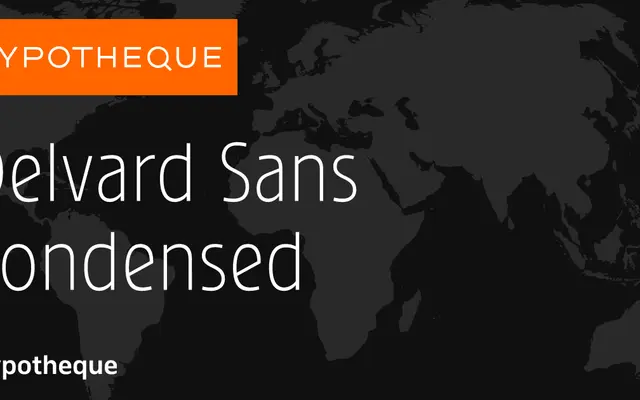
Delvard Sans Condensed
A condensed humanist sans from Typotheque, part of a wider Delvard Sans system that includes a standard-width family and a variable font.
Delvard Sans Condensed sits within a three-part system alongside Delvard Sans and Delvard Sans Variable, offering five weights from Light to Bold each with matching italics. The condensed cut gives tighter measures for text-dense layouts without sacrificing the humanist warmth of the wider family. A variable font option covers the full weight range in a single file for flexible deployment.
A condensed companion to the Delvard Sans family, exhibiting the humanist proportions and refined structure typical of Typotheque's text-oriented designs.